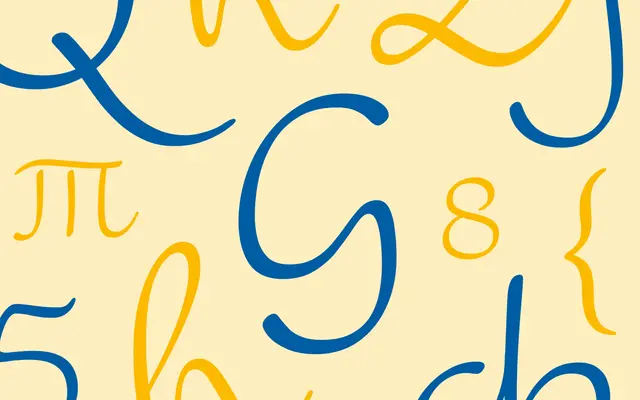
Ballare
Dalton Maag · Lukas Paltram, Alja Herlah · 2020
A broad-nib script in a single weight, drawn for display and branding with extensive swashes and Cyrillic alongside Latin.
Dalton Maag's Ballare is a broad-nib script by Lukas Paltram and Alja Herlah, designed and developed 2020. It ships in a single Regular weight with swash and swash capitals OpenType features. The page frames it as elegant, fluid and contemporary yet timeless, with Cyrillic and Latin coverage supporting over 810 languages.
Dalton Maag describes Ballare as an elegant and fluid broad-nib script font that captures the grace and movement of dance, with flowing curves suited to display and branding.